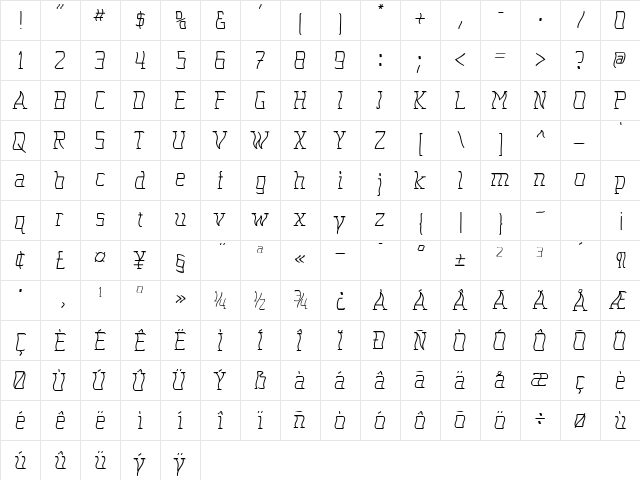
SeasickMirror Regular
Design Context for SeasickMirror Typeface
SeasickMirror offers clean, dependable letterforms without strong stylistic allegiance, making it a practical choice for designers who need flexibility.